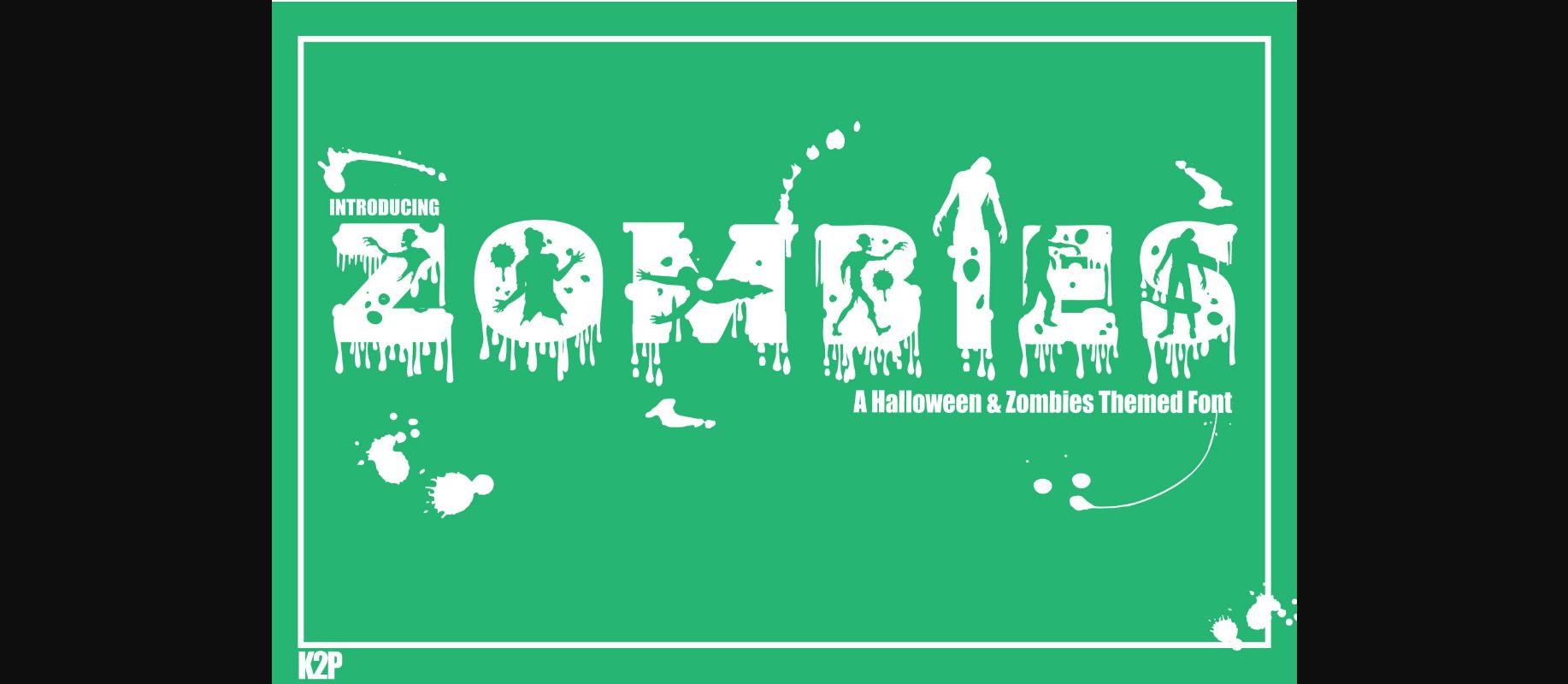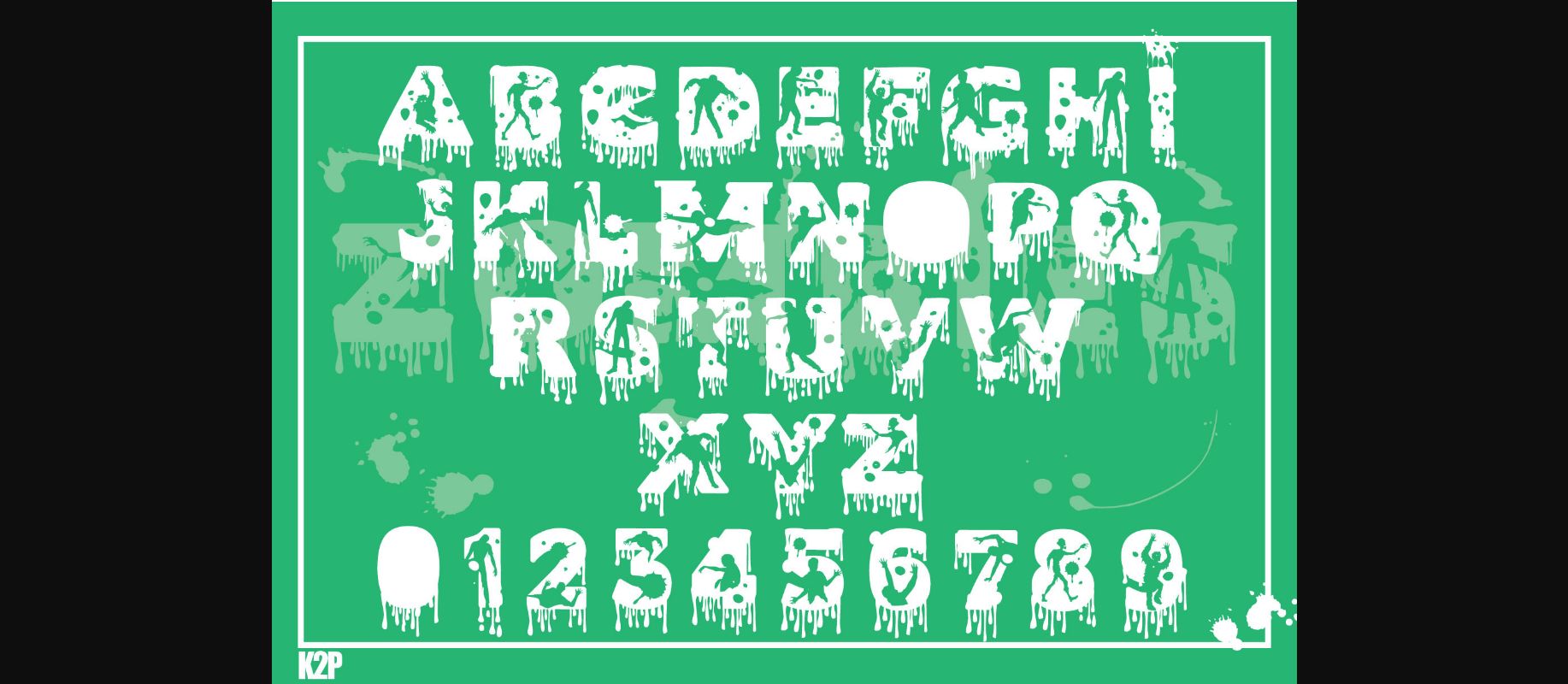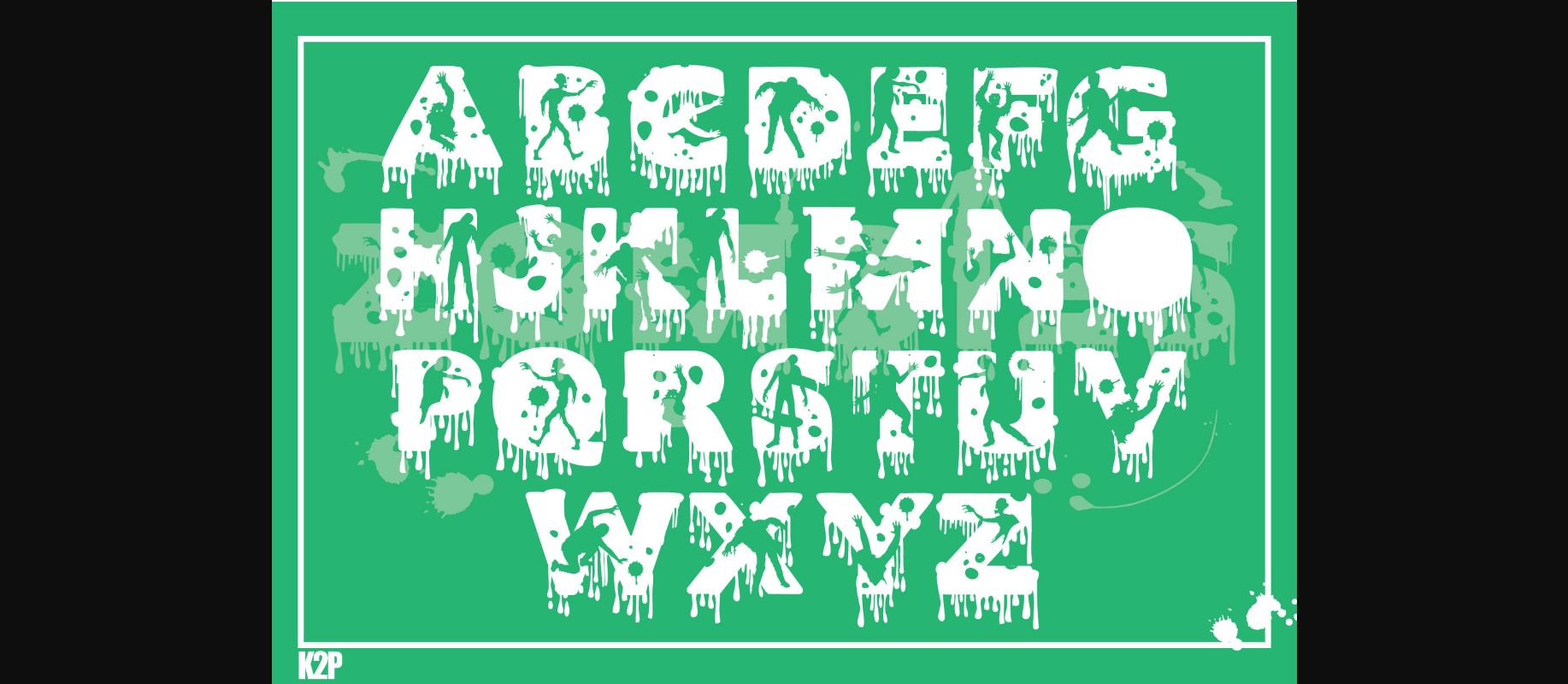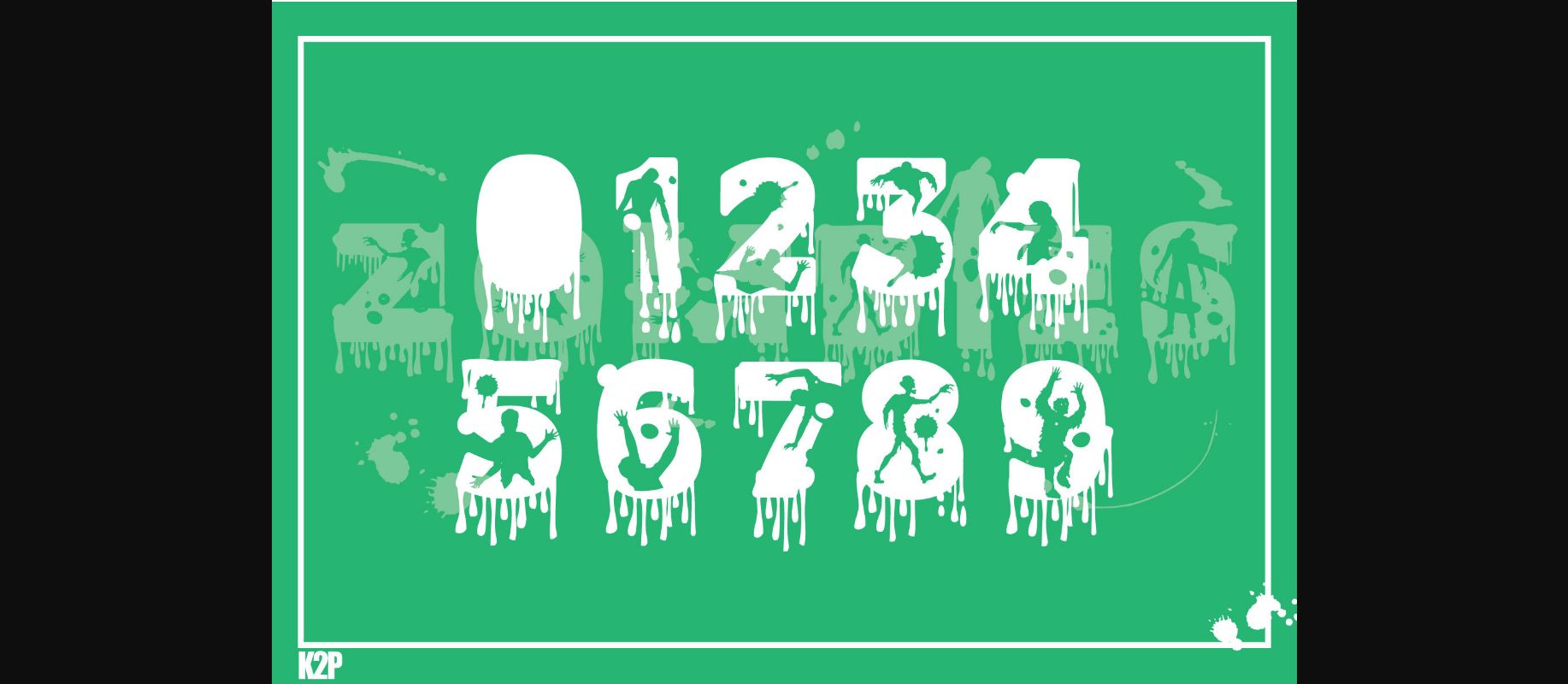
HomeDecorative FontsZombies Font Decorative Fonts Zombies Font FacebookXPinterestWhatsApp 1 of 8 ... Zombies Font Poster 2... Zombies Font Poster 3... Zombies Font Poster 4... Zombies Font Poster 5... Zombies Font Poster 6... Zombies Font Poster 7... Zombies Font Poster 8... About Zombies Font Zombies is a thick-lettered and spooky decorative font. It is perfectly suitable for any Halloween-related project and crafty idea! DOWNLOAD NOW People also explored Solihah Font Woodend Font Better Weather Font Dymond Speers Solid Font Breaking Pirate Font Rettrama Font Salemon Font Speech Bubbles Font Qualiga Font 290 0 TagsZombiesZombies Font Previous articleBlossomy FontNext articleBats Monogram Font LEAVE A REPLY Cancel reply Comment: Please enter your comment! Name:* Please enter your name here Email:* You have entered an incorrect email address! Please enter your email address here Website: Save my name, email, and website in this browser for the next time I comment. Personal Use Free BD Alm Personal Use Free Read more about this font Waturaden Personal Use Free Read more about this font Capellen Personal Use Free Read more about this font Martani Personal Use Free Read more about this font BLOG Transform Your Website: Elevate Your Typography with 7 Best Web Font Generators Are you ready to transform your website's typography from ordinary to extraordinary? Great! Today, we're diving into the world of web font generators, which... Free vs Paid Fonts: Why Investing in Premium Fonts Is Worth It Exploring Font Trends Top 7 Google Fonts Alternatives for Faster and Privacy-Friendly Web Design (2025)